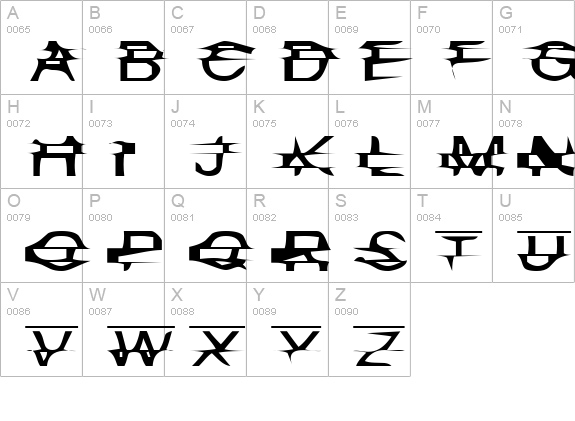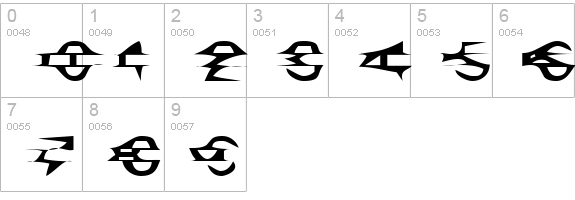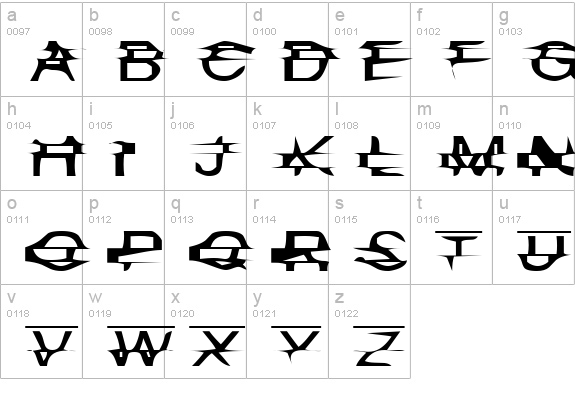
Misplaced Font Details
Misplaced font is a stunning display typeface that exudes a sense of edgy creativity and modernity. Its unique design features bold, exaggerated letterforms with a slightly distorted, off-kilter look that sets it apart from traditional fonts. The irregular spacing and jagged edges give Misplaced font a dynamic and energetic feel, making it perfect for eye-catching headlines, posters, and branding projects. One of the best things about Misplaced font is that it is completely free to download. You can easily get your hands on this versatile typeface at FontsMarket.com, where you can access a wide range of high-quality fonts for all your design needs. Whether you're a seasoned designer looking to add a fresh twist to your projects or a beginner in need of a standout font, Misplaced font is a fantastic choice that won't cost you a dime. Download it today and unleash your creativity with this captivating and free typeface.